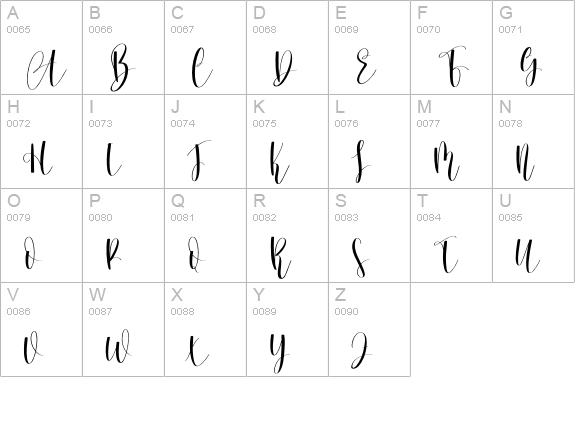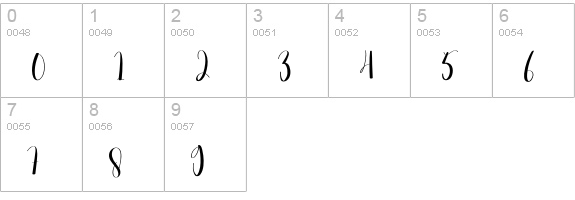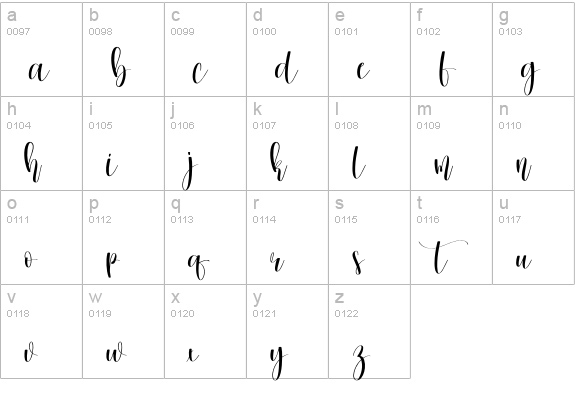
Christmas Melody2 Font Details
Christmas Melody2 is a free for personal use font in the Script > Handwritten category, designed by scratchones. It has been downloaded 1 times and is available for Windows, Mac and Linux.
Christmas Melody2 is a charming and festive font that captures the spirit of the holiday season with its whimsical and playful design. Perfect for adding a touch of Christmas magic to your projects, this font features delicate swirls and loops that evoke the feeling of holiday cheer. Whether you're creating greeting cards, invitations, or holiday-themed designs, Christmas Melody2 is sure to bring joy and warmth to your work.